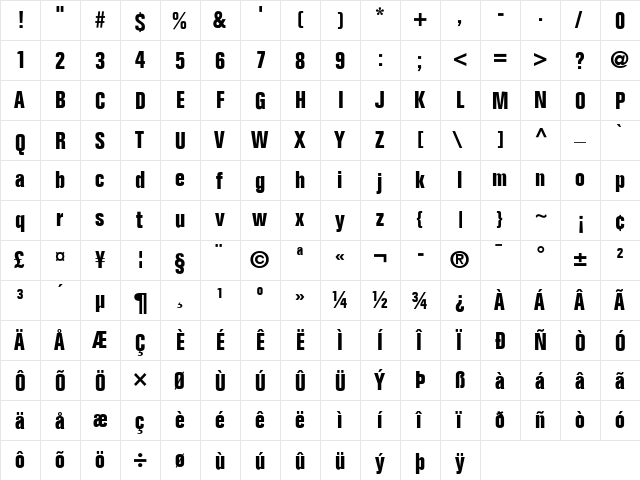
Folio BoldCondensed Regular Font Preview
Design Context for Folio BoldCondensed Typeface
Folio BoldCondensed is a composed and adaptable typeface that performs quietly and consistently across a wide range of design contexts. The heavy weight commands attention and anchors typographic hierarchies. The condensed width makes it efficient for tight spaces without sacrificing legibility.